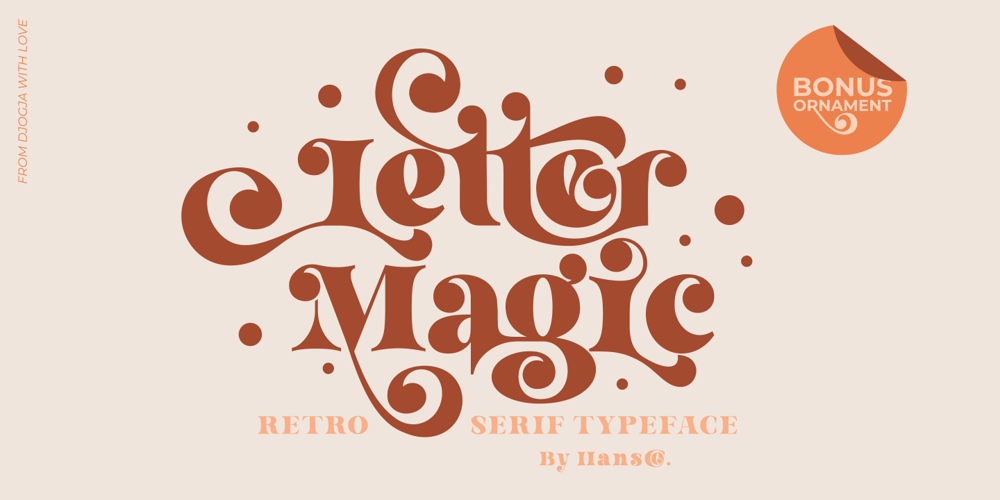
Letter Magic Font Family was designed by Burhan Afif and published by HansCo. Letter Magic contains 2 styles and family package options. INTRODUCING – Letter Magic fun and playful retro serif typeface.Letter Magic is a bold unique and playful serif typeface with 40+ ligatures and 80+ alternates that you can combine to get curves with beautiful ornament bonus.comes with a full uppercase, lowercase, numbers and punctuation + standard multilingual support. This font is perfect for fashion related branding or editorial design and displays both masculine and feminine qualities. We recommend using Adobe Illustrator or Photoshop.Tutorial how to Install & use Alternate / Special Character : https://hanscostudio.com/tutorial/Enjoy!